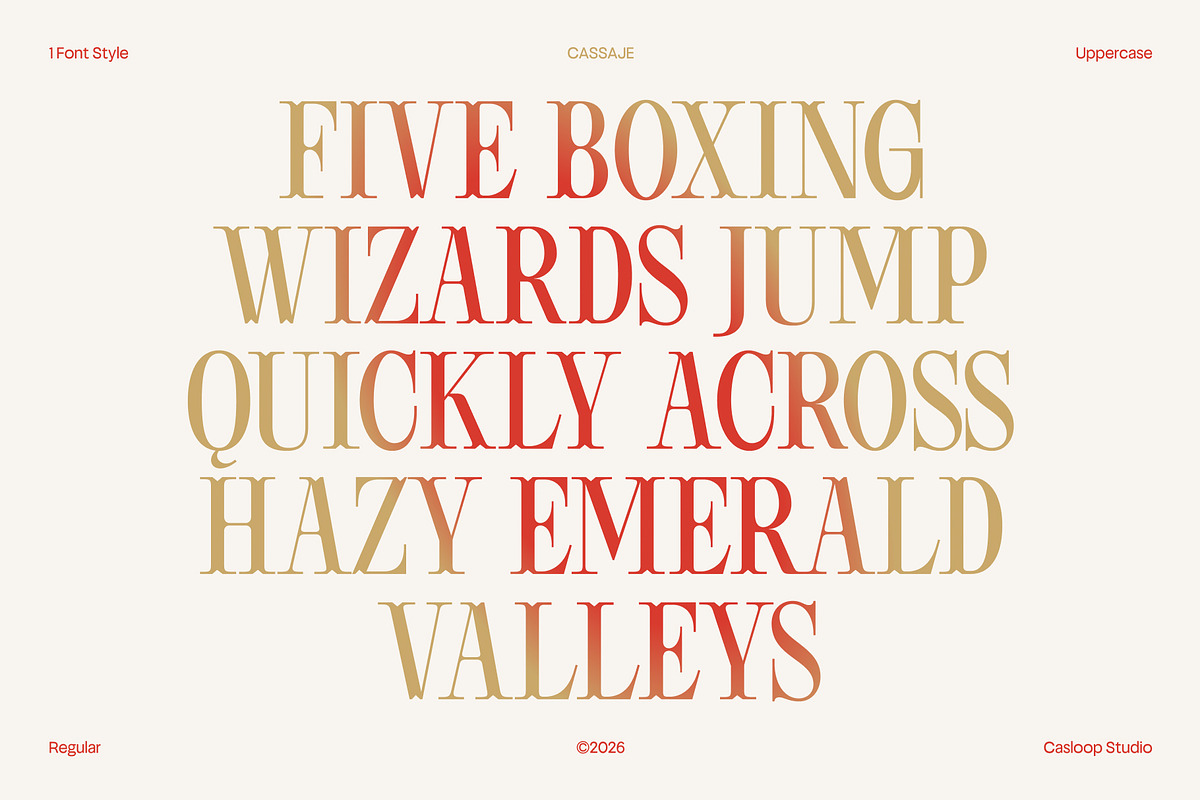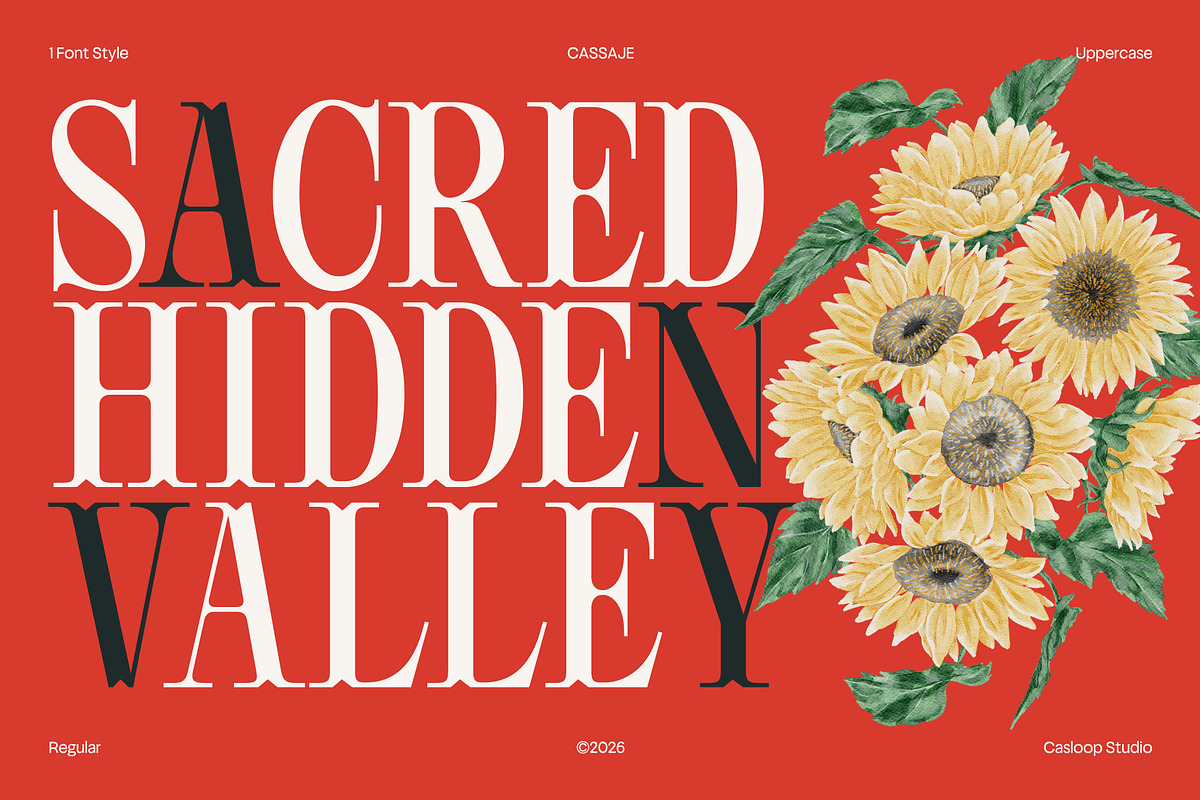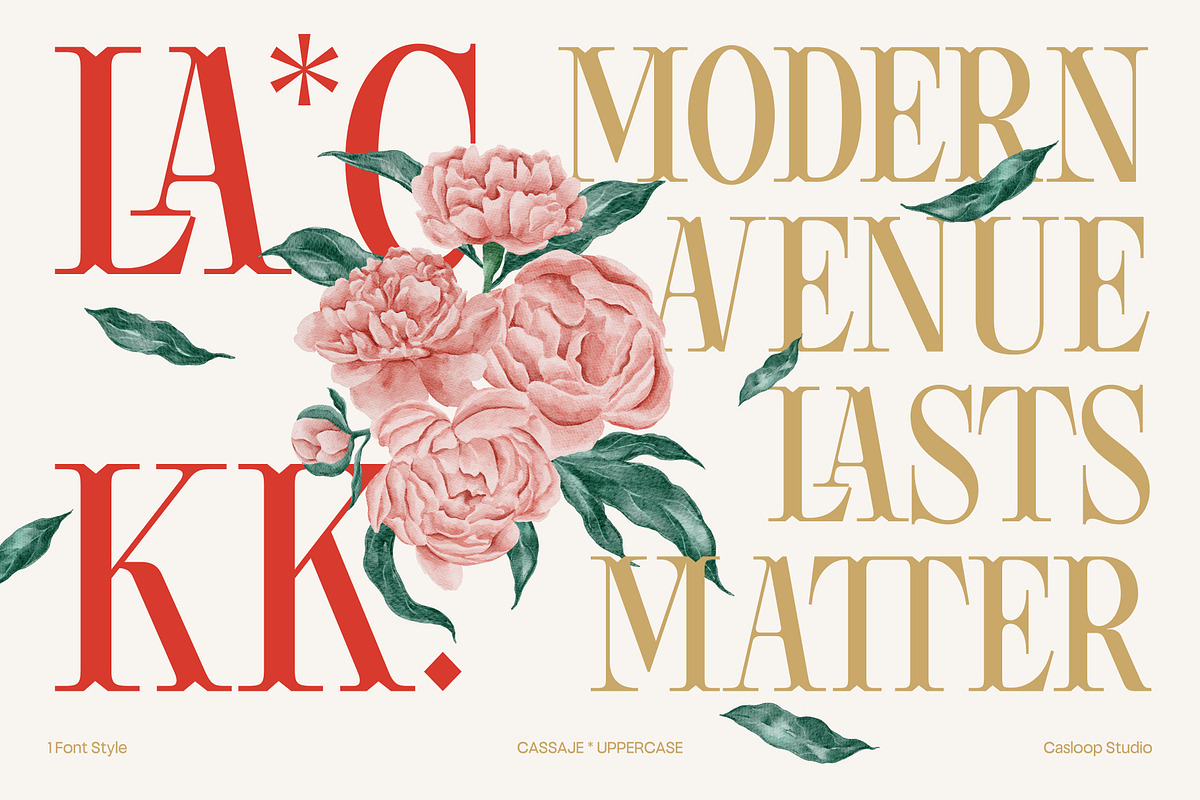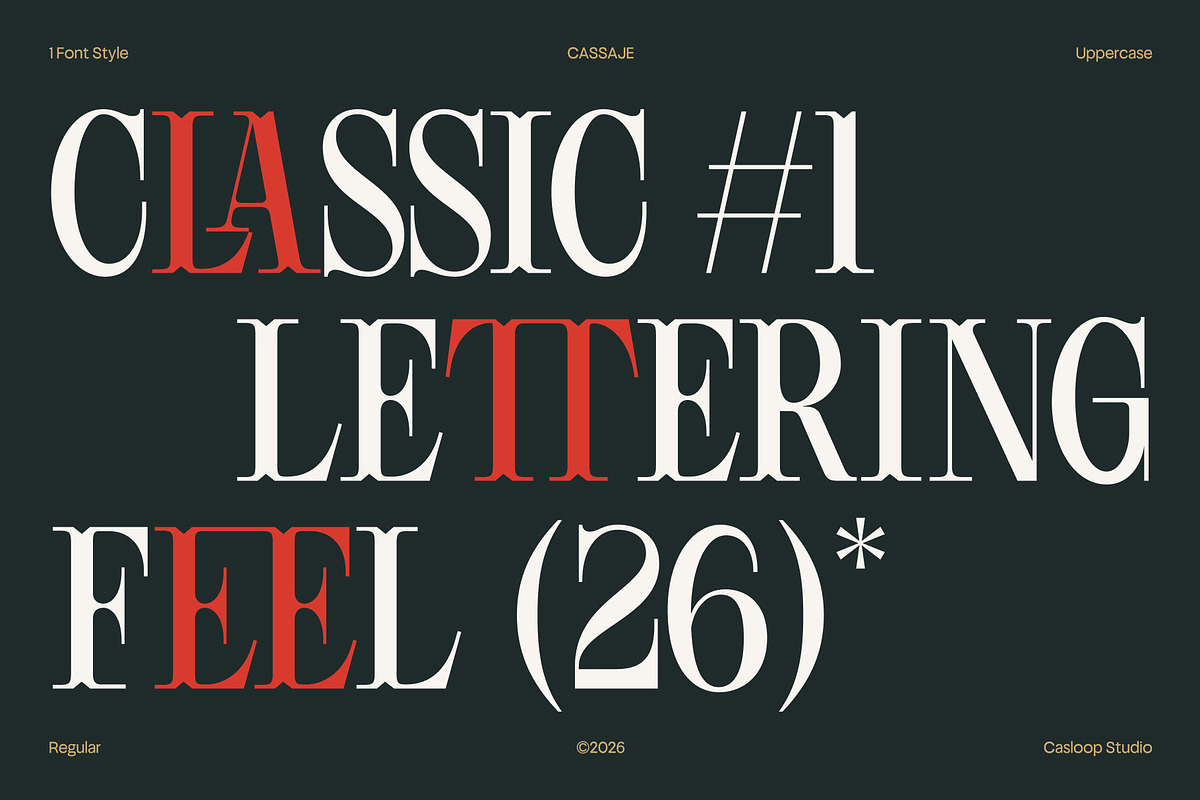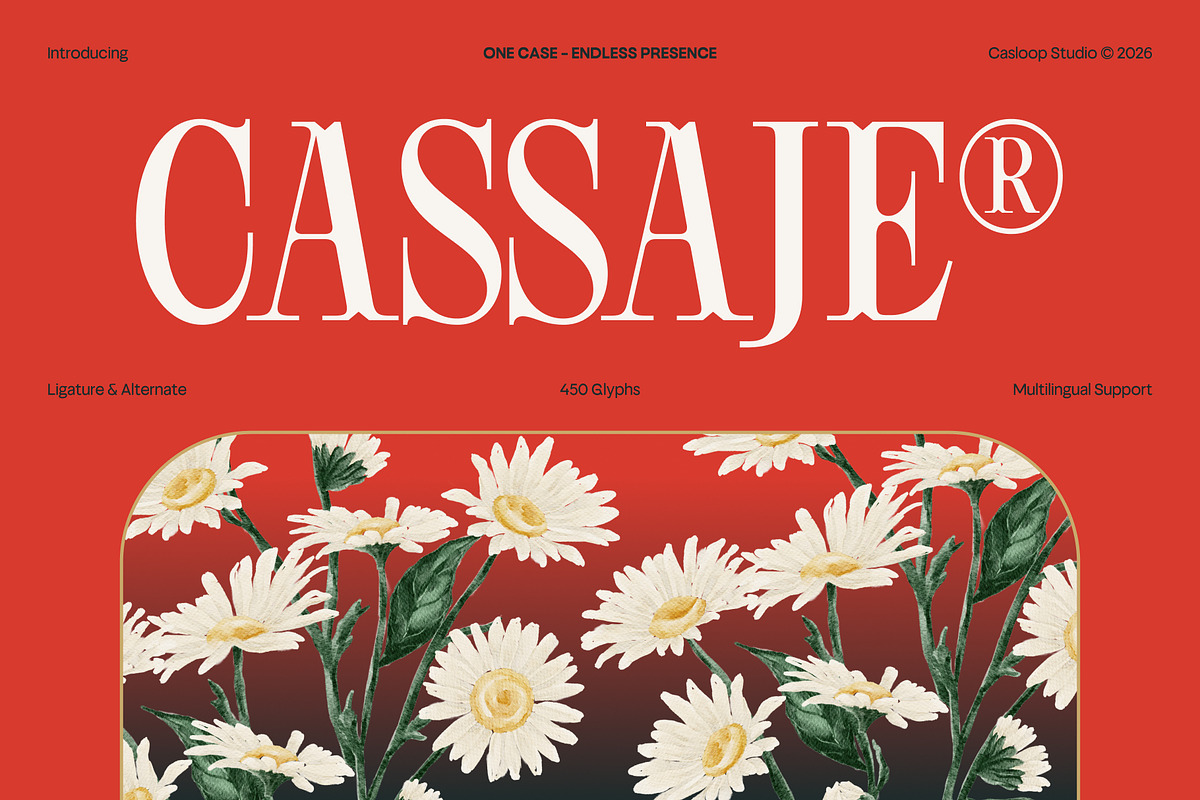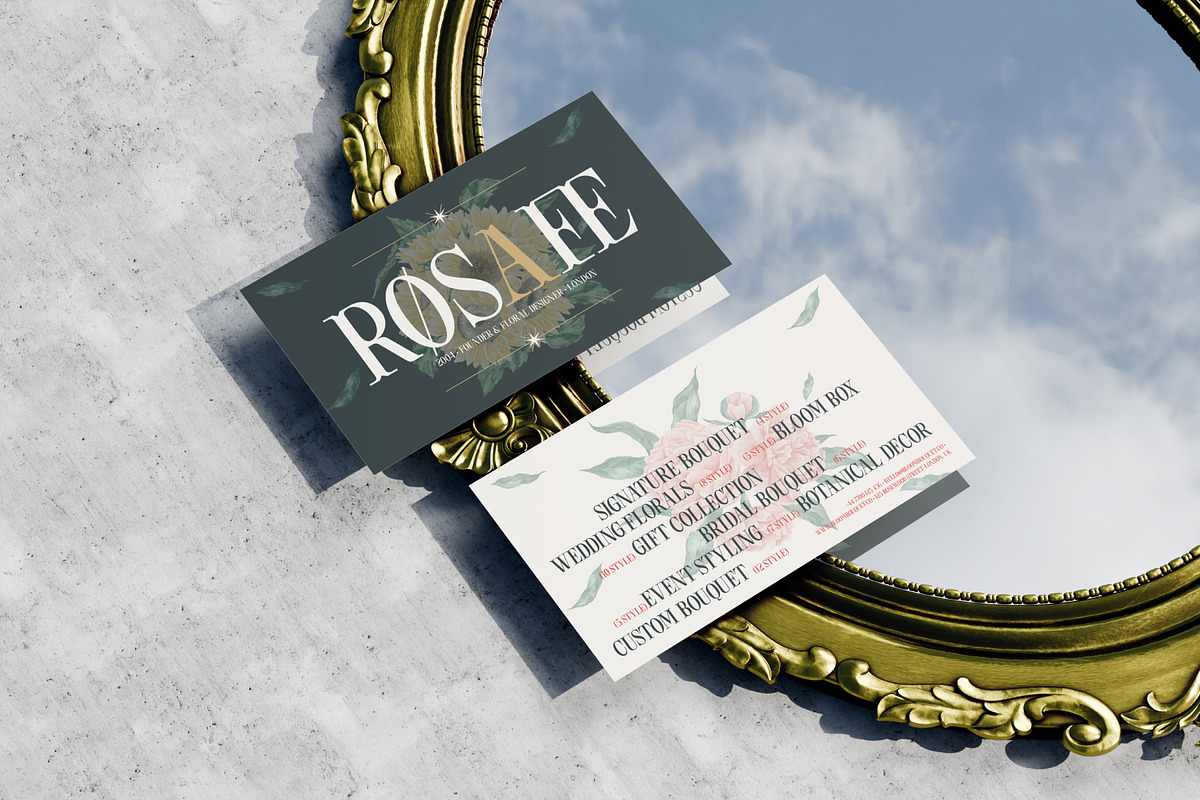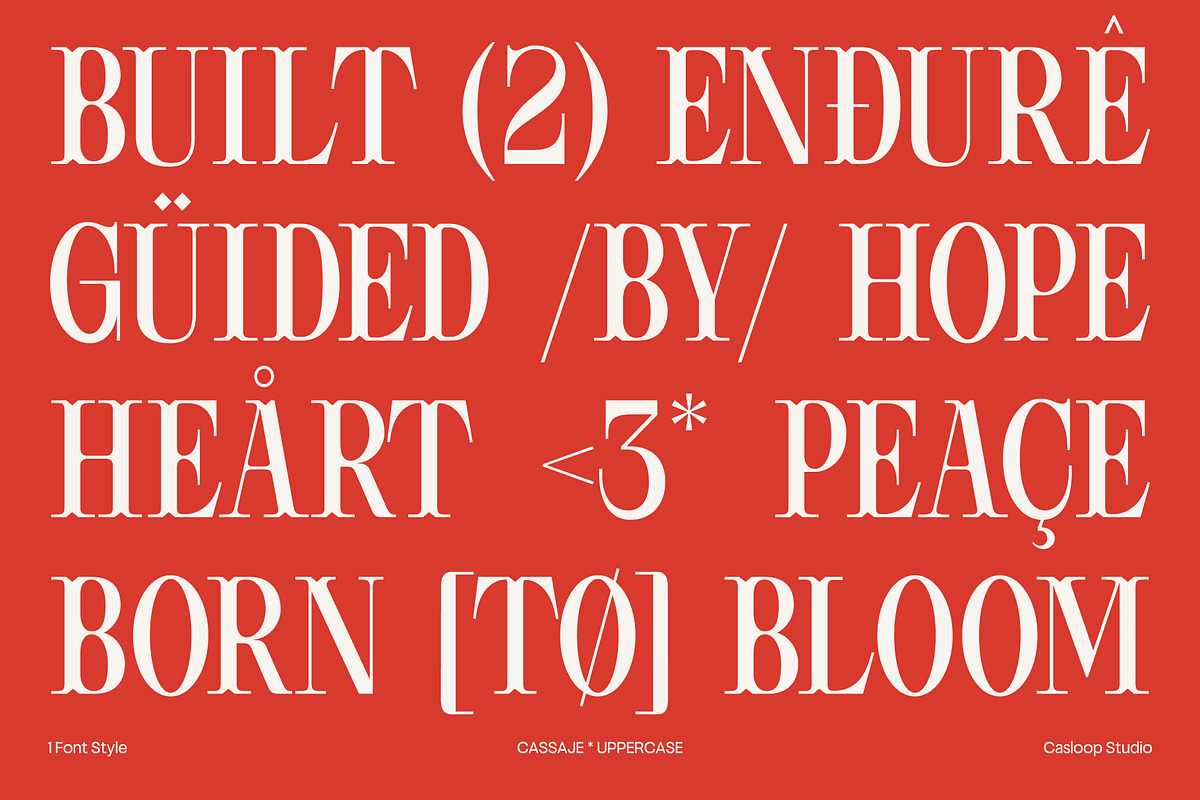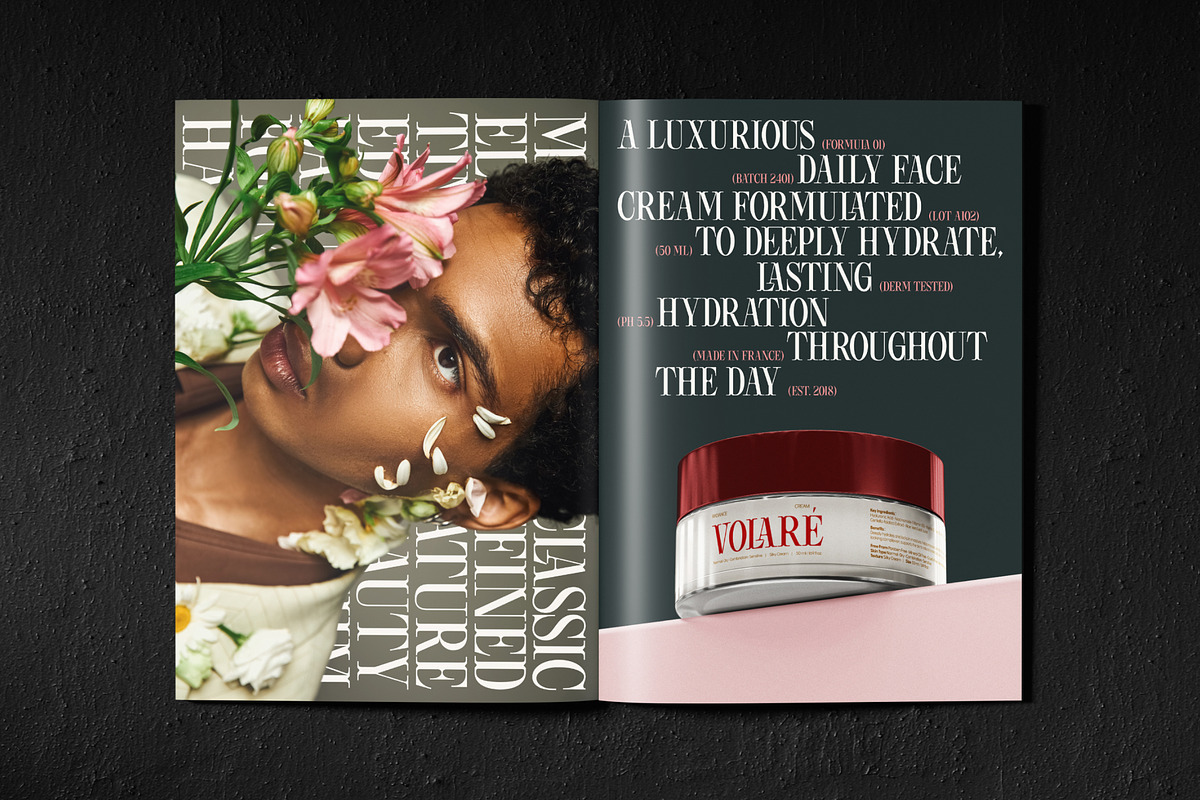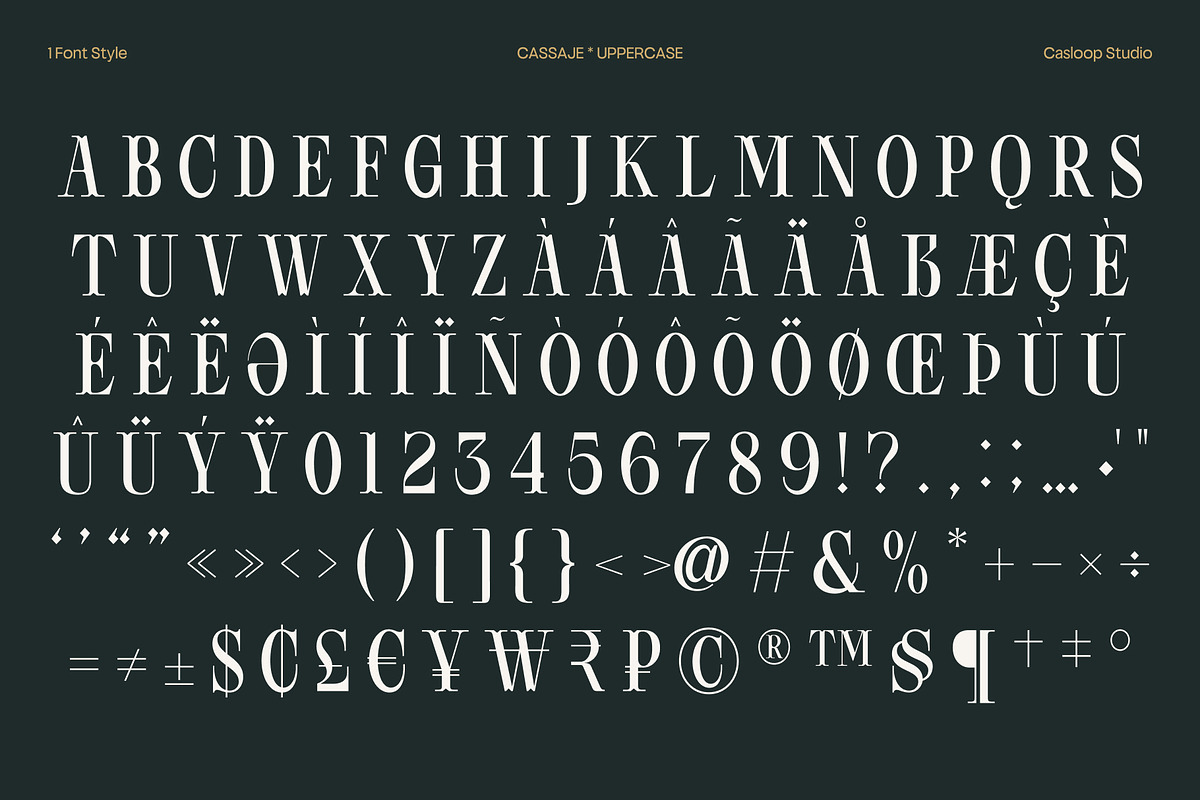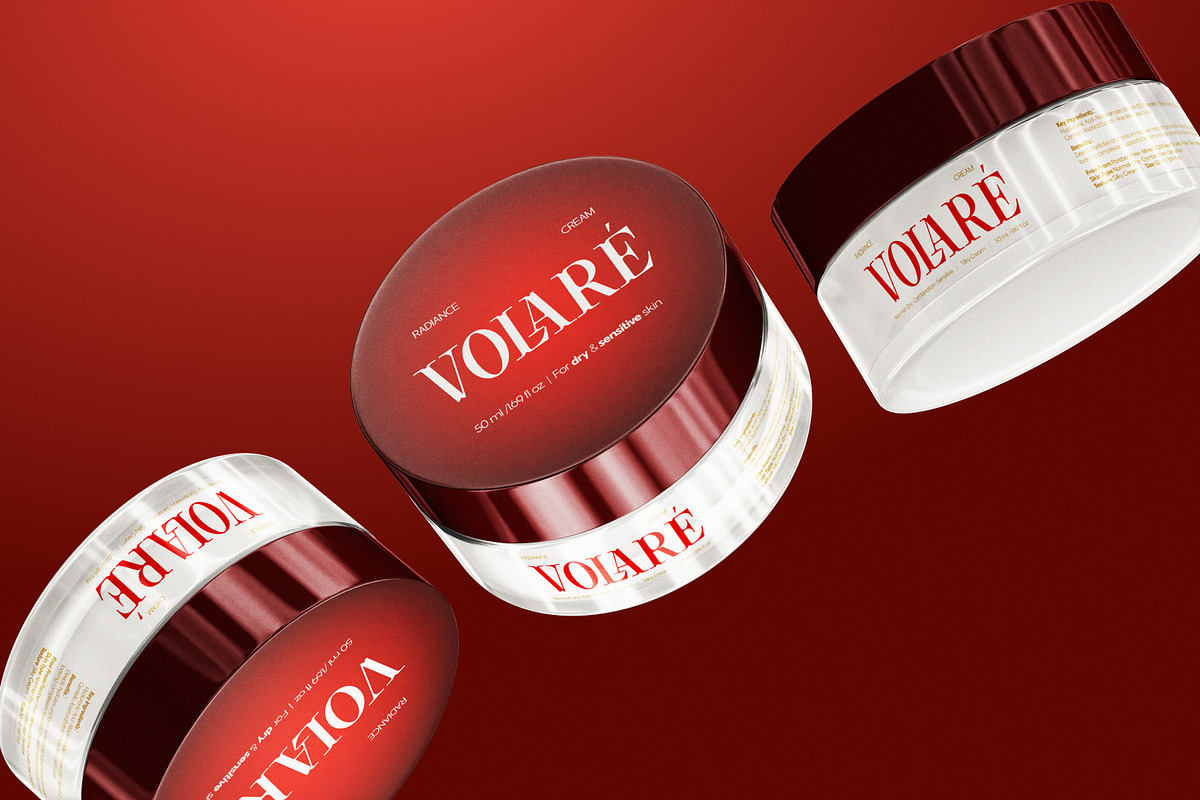
Cassaje – One Case Endless Presence
Cassaje is a floral display uppercase font designed to bring refined elegance and striking visual presence to every composition. Its defining characters A, C, G, M, Q, and R establish the typeface's signature identity through high stroke contrast, expressive terminals, and confident uppercase proportions that create a graceful editorial rhythm. Delicate floral-inspired details enrich the letterforms without compromising clarity, resulting in a display typeface that feels distinctive, modern, and luxurious. As an uppercase-only design, Cassaje is especially suited for logos, editorial headlines, fashion branding, premium packaging, invitations, and creative projects that seek a sophisticated statement with a unique botanical touch.
Recommended pairing with: Cormorant Garamond, Manrope, DM Sans, Didot, Helvetica Neue, Optima
Uppercase,
Numbers and punctuation,
Ligatures & Stylistic Alternates Characters
Multilingulal Support : Bosnian, Catalan, Czech, Danish, German, English, Spanish, Estonian, Finnish, French, Irish, Croatian, Hungarian, Icelandic, Italian, Lithuanian, Latvian, Dutch, Norwegian, Polish, Portuguese, Romanian, Slovak, Slovenian, Albanian, Swedish, Turkish.